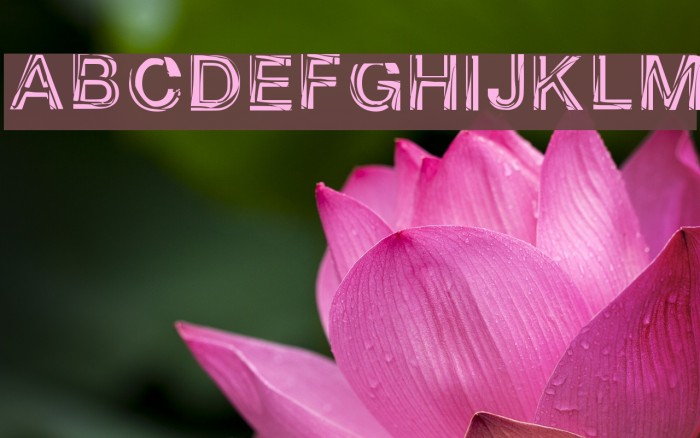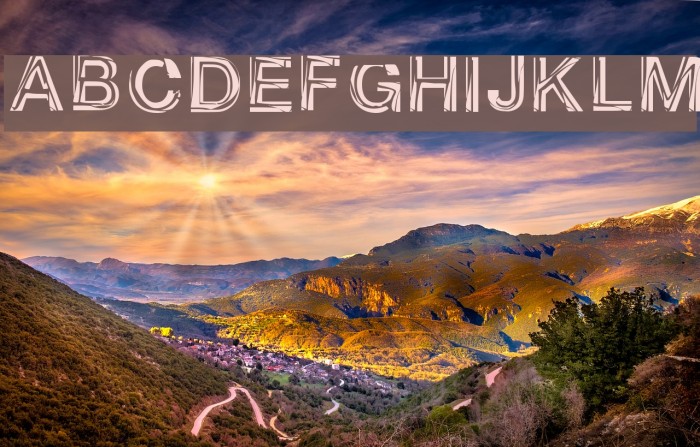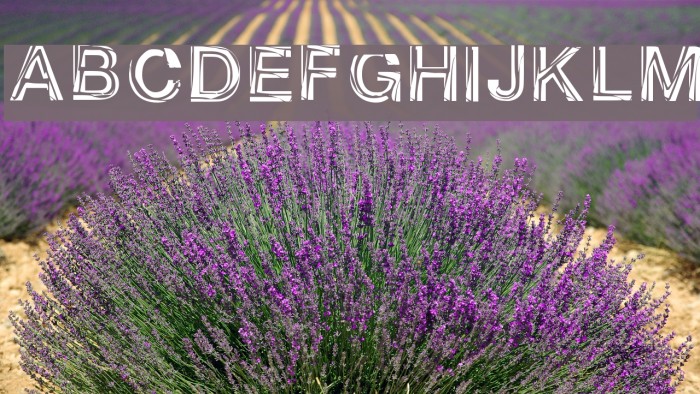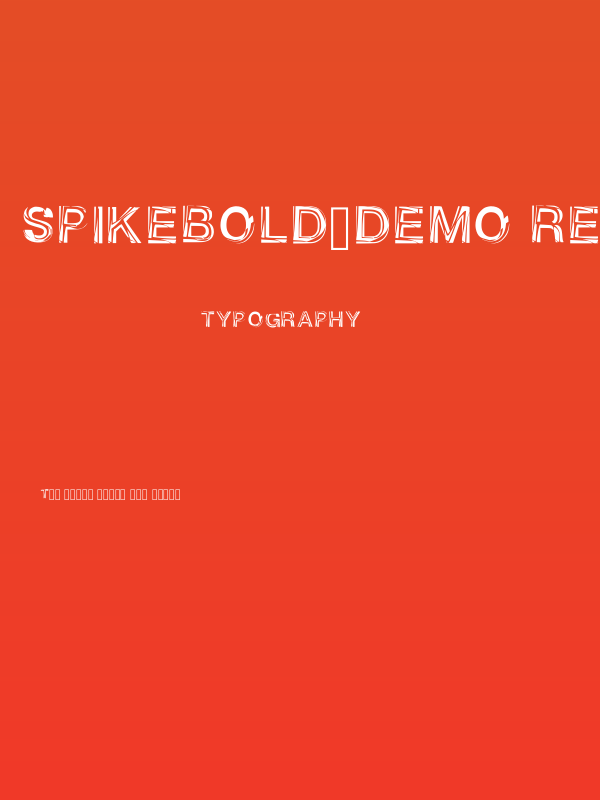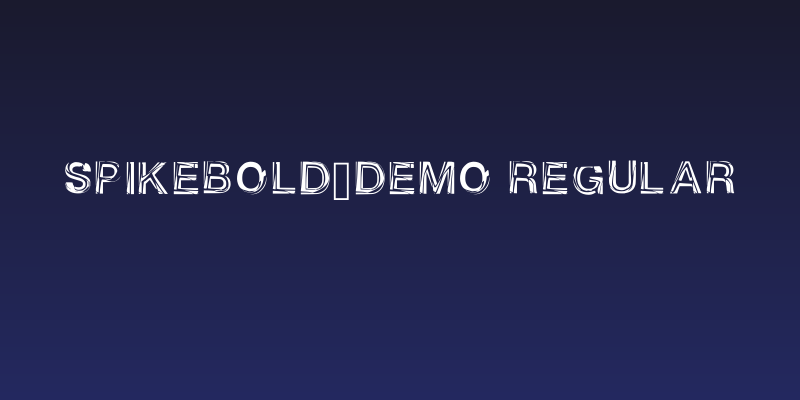
Spikebold_demo Regular Font
Spikebold_demo Regular Description
This font features a bold and dynamic style with a distressed, textured appearance. The uppercase letters are designed with a unique, edgy flair, incorporating sharp angles and irregular strokes that give it a rugged, industrial feel. The font's design is reminiscent of urban street art or grunge aesthetics, making it stand out with its bold and impactful presence. The characters are well-defined, with a consistent weight that adds to its strong visual impact. This font is ideal for projects that require a bold statement and a touch of rebelliousness.
| Overall Style | Modern, Urban, Grunge |
| Proposed Projects | Ideal for posters, album covers, streetwear branding, and urban-themed designs. |